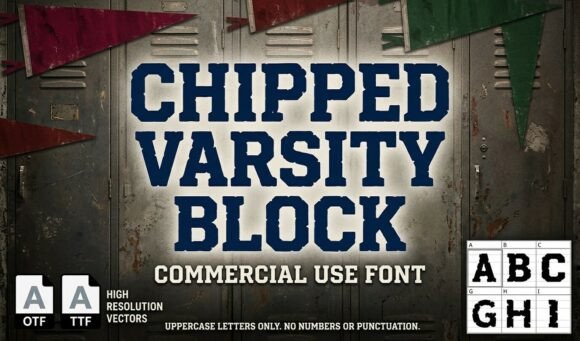
Introduction to Chipped Varsity Block Font
Bring a tough, rugged, and vintage edge to your designs with the Chipped Varsity Block Font.
This bold, distressed slab-serif font features rough, irregular, and โchippedโ edges that give it an authentic, worn-in, or slightly grunge look It perfectly captures the feel of vintage athletic wear, old woodblock printing, or rugged outdoor branding.
Key Features of Chipped Varsity Block Font
Why Choose Chipped Varsity Block Font?